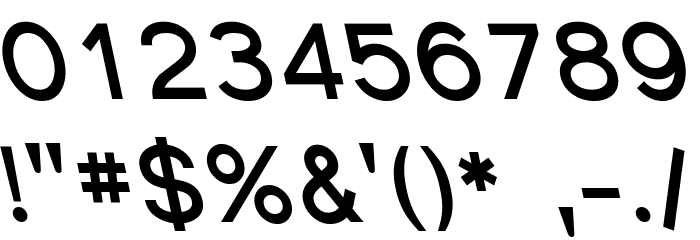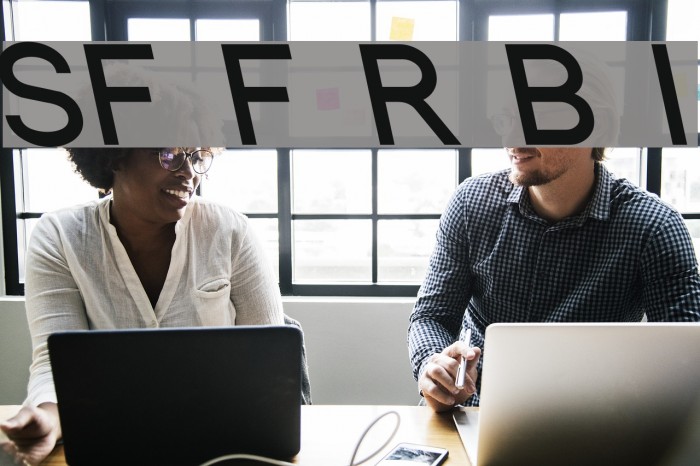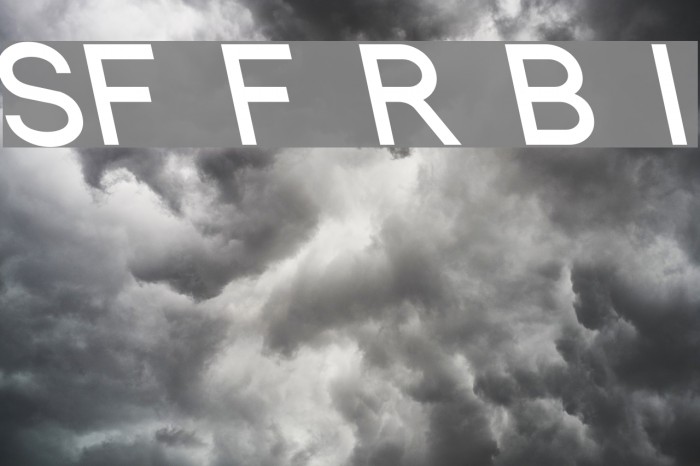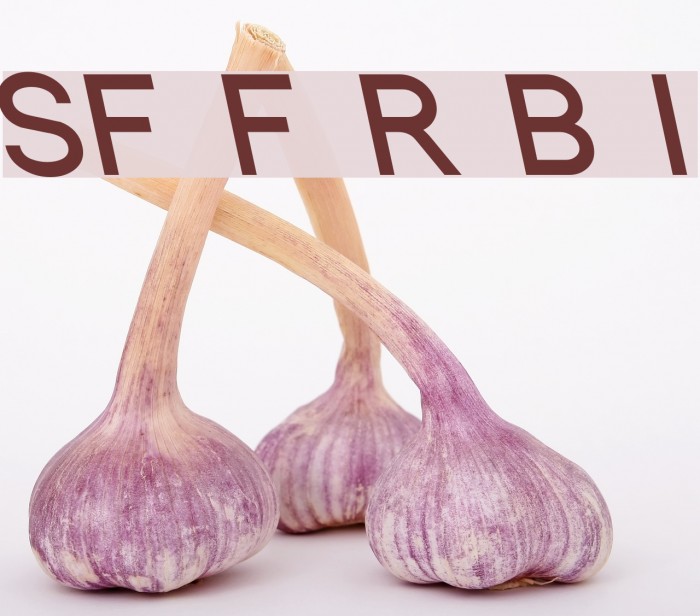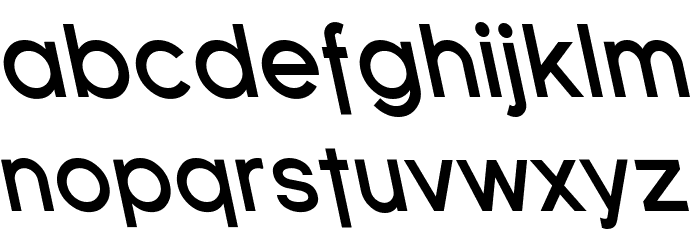
SF Florencesans Rev Bold Italic Font
SF Florencesans Rev Bold Italic Description
This font features a bold and italicized style, combining a modern aesthetic with a clean, sans-serif design. The characters are well-defined with a uniform stroke width, providing a strong and assertive appearance. The italic slant adds a dynamic and forward-moving feel, making it suitable for contemporary design projects. The uppercase and lowercase letters are balanced, with consistent proportions that ensure readability. The numerals and special characters maintain the same boldness and slant, ensuring a cohesive look across all text elements.
A bold, italicized sans-serif font with a modern and dynamic style from Uncategorized fonts.
- Proposed Projects: Ideal for branding, advertising, headlines, and digital media projects where a strong, modern impression is desired.
- Use Case: Headlines, Logos, Branding